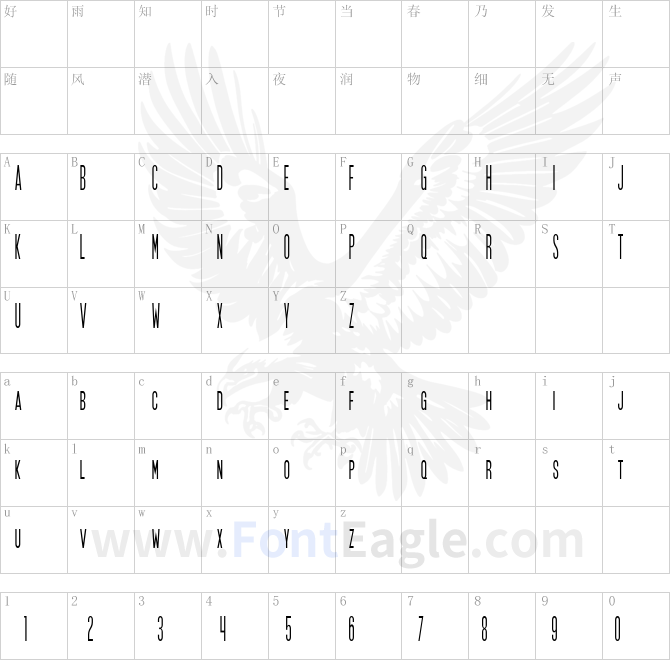
- Font name:SF Movie Poster Condensed
- Font Subfamily ID:ShyFontsTypeFoundry: SF Movie Poster Condensed: 2000
- Font Full Name:SF Movie Poster Condensed
- Postscript:SFMoviePosterCondensed